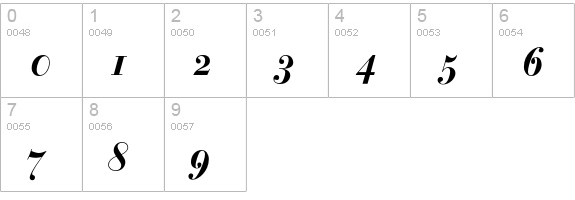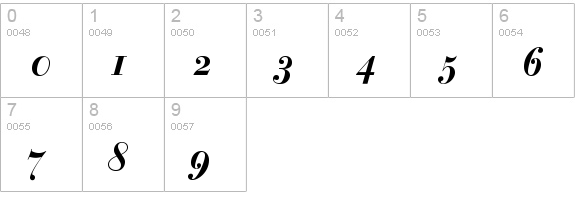
Bauer Bodoni Bold Italic Oldstyle Figures Font Details
Bauer Bodoni Bold Italic Oldstyle Figures is a strong, high-contrast, italic variant in the Bauer typeface family \xE2\x80\x94 well suited to headlines, attention-grabbing titles, and strong calls-to-action.
Bauer Bodoni Bold Italic Oldstyle Figures font is a timeless and elegant typeface that exudes sophistication and class. The bold and italic style adds a touch of drama and flair to any design project, making it perfect for luxury branding, editorial layouts, and high-end packaging. The oldstyle figures give it a classic and traditional feel, making it suitable for a wide range of applications. What sets Bauer Bodoni Bold Italic Oldstyle Figures font apart is its versatility and legibility, making it an ideal choice for both print and digital media. Whether you're designing a magazine spread, a wedding invitation, or a website header, this font will make your text pop and stand out. Best of all, Bauer Bodoni Bold Italic Oldstyle Figures font is freely available to download at FontsMarket.com, allowing you to elevate your design projects without breaking the bank. So why wait? Add this stunning font to your collection today and take your designs to the next level.